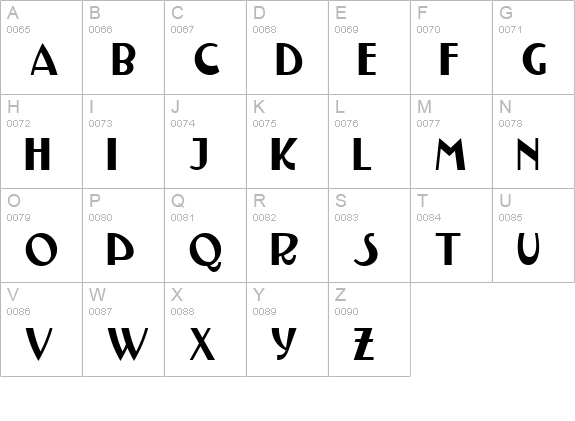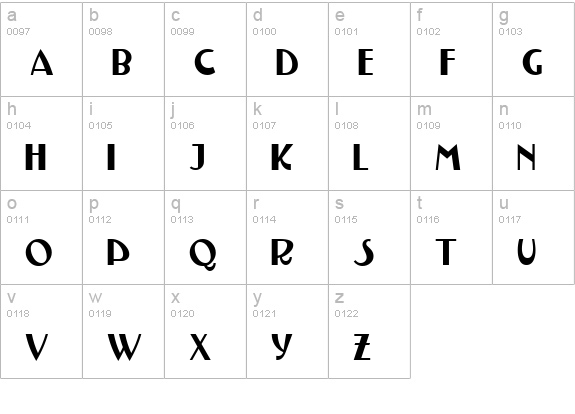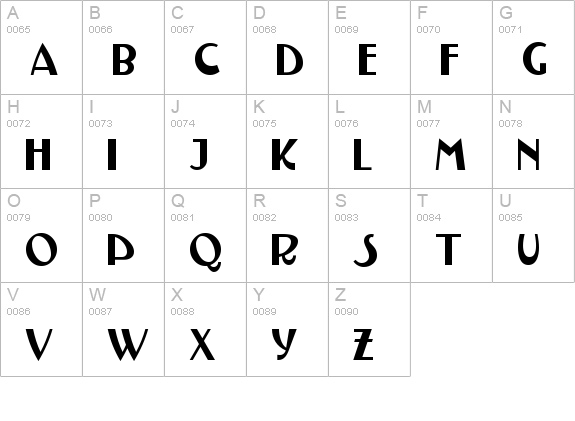
TestarossaNF Font Details
TestarossaNF is a stunning and elegant font that exudes a sense of sophistication and class. Its sleek and modern design makes it perfect for a wide range of projects, from branding and logos to website headers and invitations. This font features beautifully crafted letterforms that are both legible and eye-catching. Each character is meticulously designed to ensure a harmonious flow and balance within the overall composition. The high level of detail in TestarossaNF is truly remarkable, adding an element of luxury and refinement to any project. One of the most appealing aspects of TestarossaNF is that it is freely available to download at FontsMarket.com. This means that you can effortlessly incorporate this stunning font into your designs without any additional cost. Whether you are a professional designer or a hobbyist, TestarossaNF offers you the opportunity to elevate your work to new heights. Not only is TestarossaNF visually striking, but it also offers exceptional versatility. With multiple weights and styles to choose from, you can easily tailor this font to suit your specific needs. Whether you are looking for a bold and impactful headline font or a subtle and elegant body text font, TestarossaNF has got you covered. Furthermore, TestarossaNF is designed with usability in mind. It is optimized for both print and digital applications, ensuring that your designs will always look their best, regardless of the medium. The attention to detail in this font extends to its legibility at various sizes, ensuring that your message will be conveyed clearly and effectively. In conclusion, TestarossaNF is a remarkable font that combines elegance, versatility, and usability. Its freely available download at FontsMarket.com makes it an invaluable resource for designers of all levels. Whether you are working on a personal project or a professional endeavor, TestarossaNF is sure to elevate your designs and make a lasting impression.